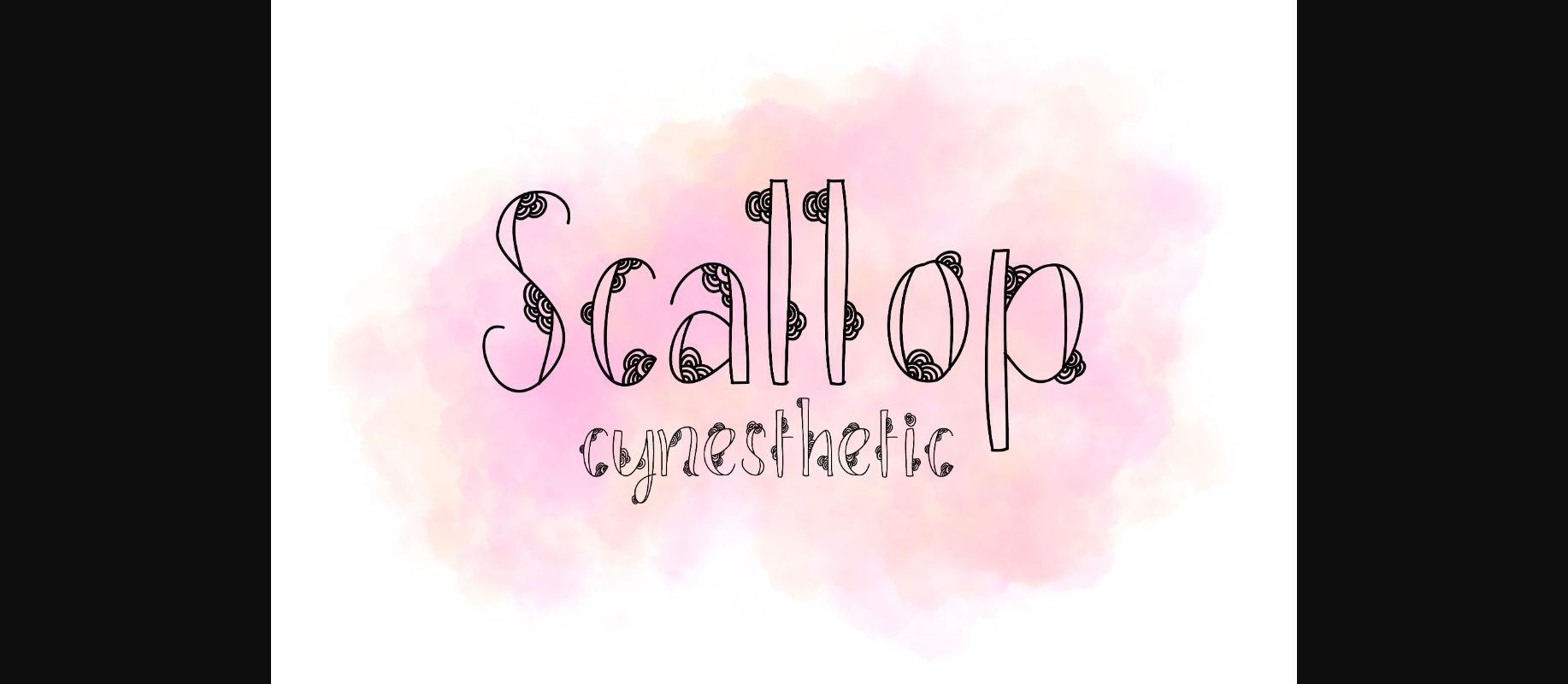
Scallop Font
About Scallop Font
Some monoweight doodles in font form, Scallop is fun and carefree. Use for decorative purposes and when you want to add a lighted hearted vibe to your designs.